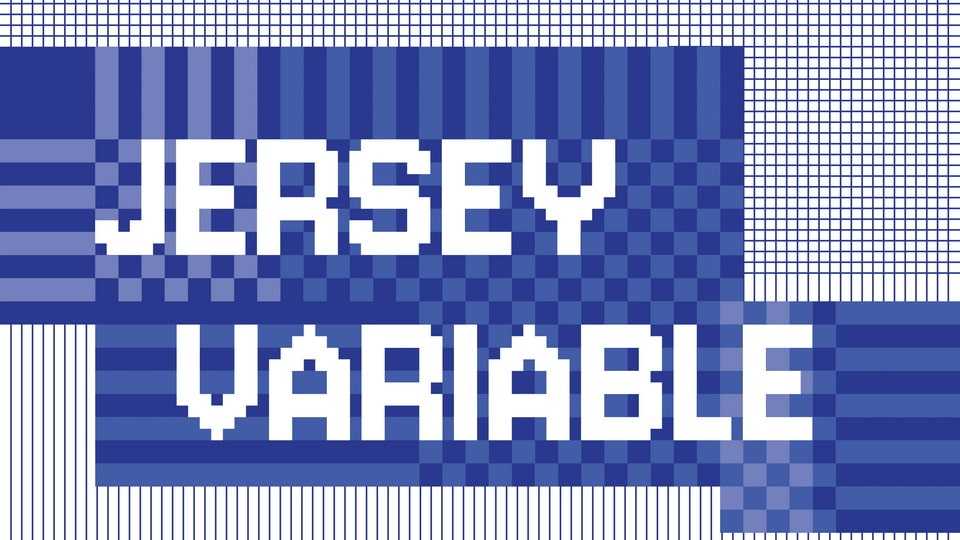
Download Jersey font, a sporty, versatile sans-serif typeface, knittable at various sizes. Soft Type is a collection of typefaces designed for knitting color-work.
Designer: Sarah Cadigan-Fried